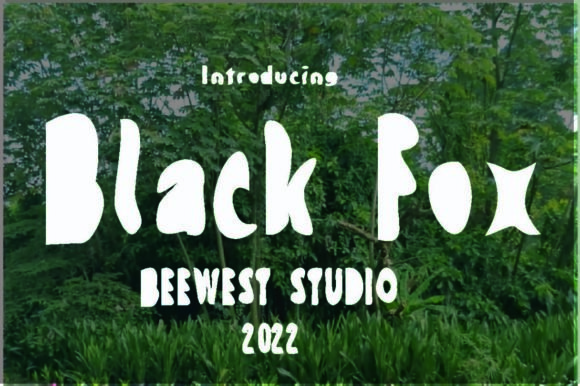
The Perfect Blend of Bold and Elegance: Black Fox Font
As designers, we’ve all been there – staring at a blank canvas, desperately searching for the perfect font to bring our creative vision to life. The moment of epiphany hits when you stumble upon the perfect typography, and everything falls into place. For those seeking a bold and eye-catching display font, the search ends here – welcome to the Black Fox Font.
This versatile font is designed to make a statement, whether it’s for a corporate identity, a music album cover, or a comic book series. Its bold and thick letters are perfect for logotype, headlines, and any design project that requires maximum impact. With its sleek and modern design, Black Fox Font is a valuable addition to any designer’s toolkit.
Black Fox Font Key Features
- Font Family: Black Fox is a sans-serif font, designed to be modern and elegant.
- Unique Characteristics: Black Fox features a unique blend of geometric and organic shapes, resulting in a distinctive and modern aesthetic.
Black Fox Font Review
As a designer, I was excited to try out the Black Fox font. Here’s my honest review:
Unique Style: Black Fox font has a distinctive, modern feel that sets it apart from more traditional fonts.
High-Quality Rendition: The font renders well across various devices and screen sizes, ensuring a consistent look.
Good Readability: The font’s design makes it easy to read, even at smaller sizes.
Limited Character Set: The font only includes a basic set of characters, which may not be suitable for languages that require more complex scripts.
Not Ideal for Body Text: While Black Fox works well for headings and titles, it may not be the best choice for body text due to its relatively large x-height.
Not Fully Compatible: I encountered some compatibility issues with certain design software, which may require additional tweaking to work smoothly.
Overall, I think the Black Fox font is a solid choice for designers looking for a modern, stylish font. While it has some limitations, its unique style and high-quality rendition make it a great addition to any design project.
Getting the Most Out of Black Fox Font
For best results, use the Black Fox Font in conjunction with high-quality images and a clear design concept. Experiment with different font sizes, colors, and styles to achieve a unique look. Consider pairing the font with complementary colors and textures to create a visually appealing design.
The Black Fox Font is ideal for:
– Marketing materials (brochures, flyers, etc.)
– Digital products (e-books, infographics, etc.)
– Creative projects (artwork, typography, etc.)
Alternatives to Black Fox Font for Designers
Montserrat is a sans-serif font that originated in Argentina. It is a great alternative to Black Fox Font for designers who want a clean and modern look. Montserrat is more geometric and has a larger x-height compared to Black Fox Font, making it suitable for digital interfaces and websites. It is also highly legible at small font sizes.
Merriweather is a classic serif font that is perfect for designers who want a more traditional look. It is a great alternative to Black Fox Font for body text and is highly legible at large font sizes. Merriweather has a more formal and elegant feel compared to Black Fox Font, making it suitable for books, magazines, and other print materials.
What is the recommended font size and line height for the Black Fox Font?
The recommended font size for the Black Fox Font is between 12pt and 24pt, with a line height of 1.2 to 1.5 times the font size. This will provide optimal readability and legibility for most text-based applications.